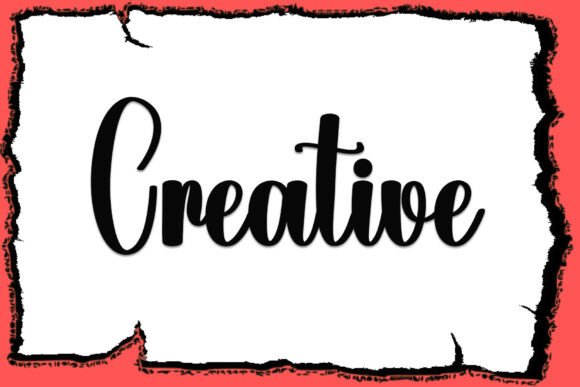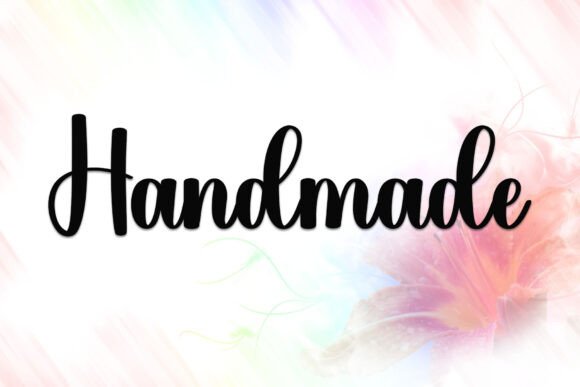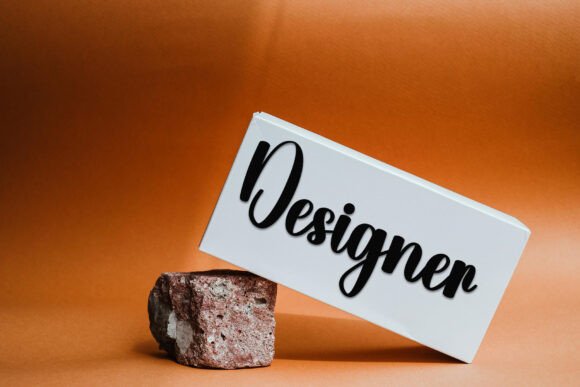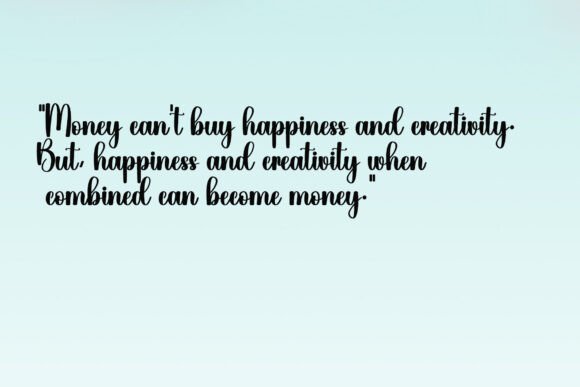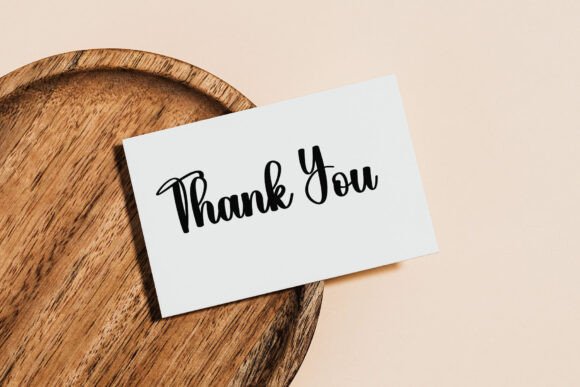
Hello Birthday Font: Elevate Your Designs with Elegance and Class
Are you tired of using the same old fonts for your design projects? Look no further than the Hello Birthday Font, a trendy handwritten font that brings a touch of elegance and class to any design. Inspired by timeless classic calligraphy, this font is perfect for designers and crafters looking to add a contemporary twist to their work.
The Inspiration Behind Hello Birthday Font
Hello Birthday Font is a beautiful example of modern calligraphy, with a unique blend of traditional and contemporary elements. The font’s creator drew inspiration from classic calligraphy, infusing it with a fresh and modern atmosphere. The result is a font that exudes sophistication and style, making it perfect for a wide range of design projects.
Key Features of Hello Birthday Font
- Trendy Handwritten Style: Hello Birthday Font boasts a trendy handwritten style that adds a personal touch to any design.
- Contemporary Atmosphere: The font’s modern twist makes it perfect for designers looking to create fresh and contemporary designs.
- Impeccable Form: The font’s impeccable form ensures that it is easy to read and looks great in any design.
- Elegance and Class: Hello Birthday Font adds a touch of elegance and class to any design, making it perfect for high-end projects.
Uses for Hello Birthday Font
Hello Birthday Font is a versatile font that can be used for a wide range of design projects, including:
- Wedding Invitations: Add a touch of elegance to your wedding invitations with Hello Birthday Font.
- Branding and Packaging: Use the font to create beautiful and sophisticated branding and packaging designs.
- Social Media Graphics: Elevate your social media graphics with the font’s trendy and modern style.
- Stationery and Greeting Cards: Create beautiful stationery and greeting cards with Hello Birthday Font.
Why Choose Hello Birthday Font?
With so many fonts available, why choose Hello Birthday Font? Here are just a few reasons:
- Unique and Eye-Catching: The font’s unique style ensures that your designs will stand out from the crowd.
- Easy to Read: The font’s impeccable form makes it easy to read, even at small sizes.
- Versatile: Hello Birthday Font can be used for a wide range of design projects, making it a great addition to any designer’s toolkit.
Tips for Using Hello Birthday Font
Here are a few tips for getting the most out of Hello Birthday Font:
- Use it Sparingly: Use the font sparingly to add emphasis and create visual interest.
- Pair it with Other Fonts: Pair Hello Birthday Font with other fonts to create a unique and interesting design.